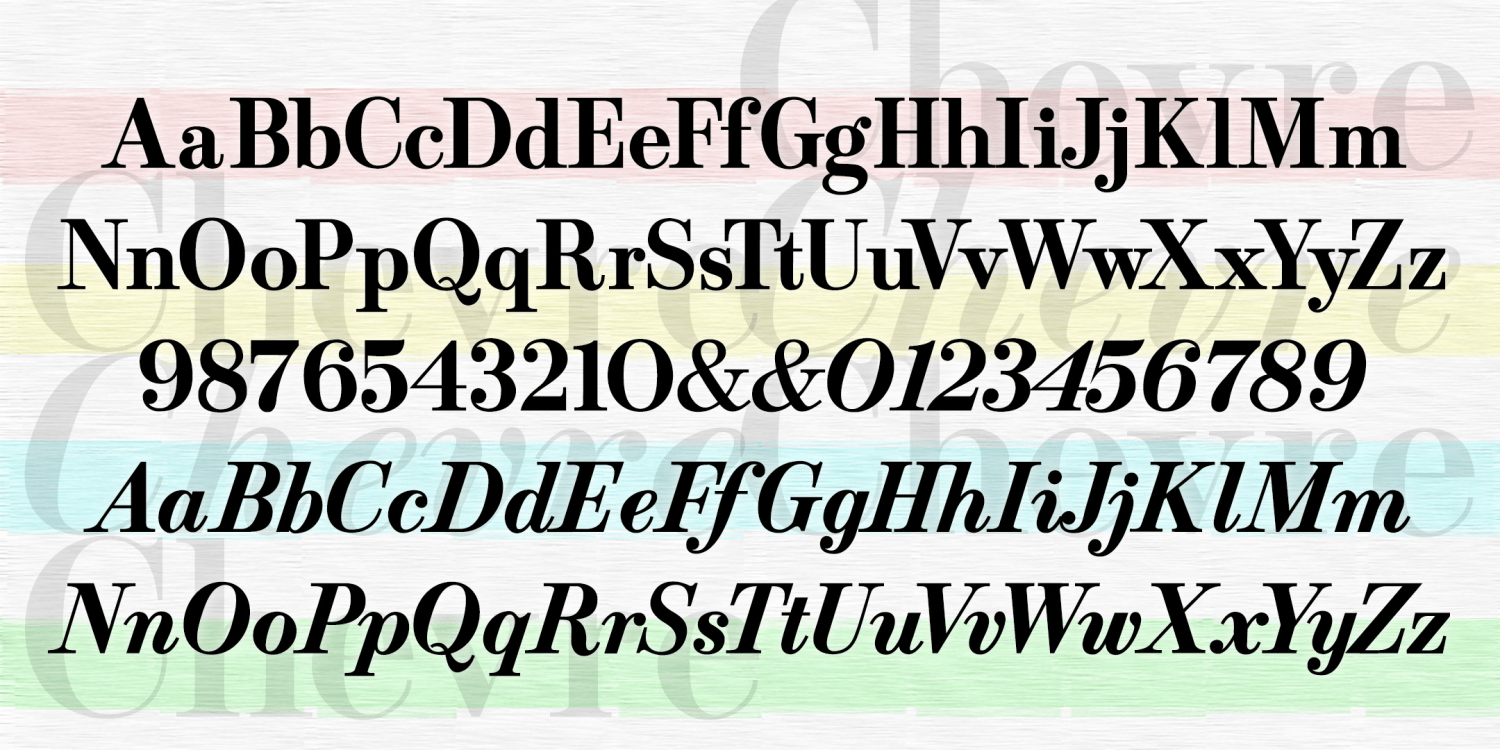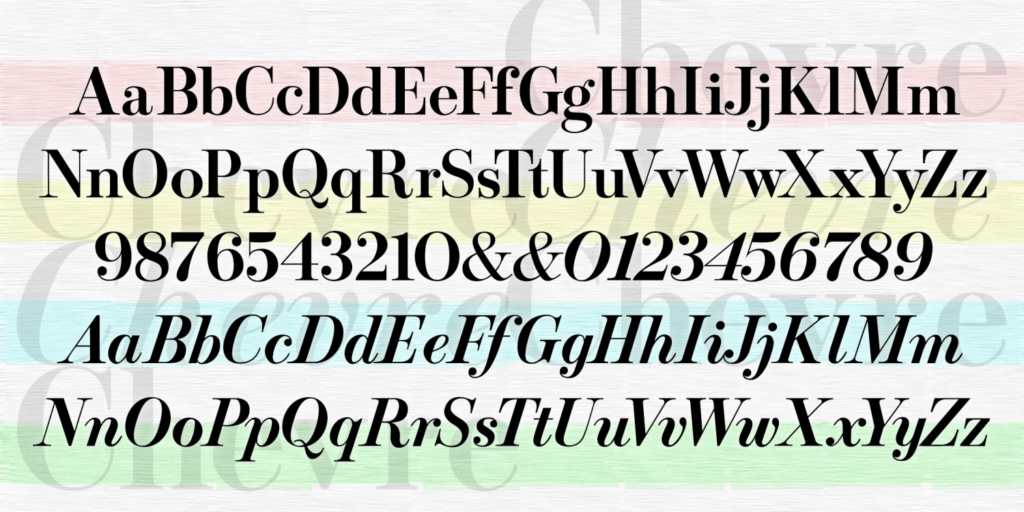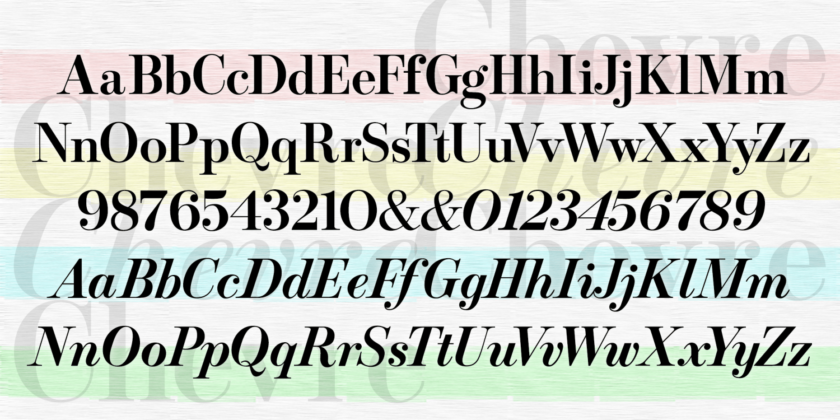
Chevre
About Chevre
Stylish and graceful, the CHEVRE fonts were inspired by roman and italic fonts designed by Mortimer Leach for use by Chevrolet in print ads about 1957-1960. Leach borrowed aspects of Bodoni, Century Schoolbook, and Century Expanded to make his new creation…